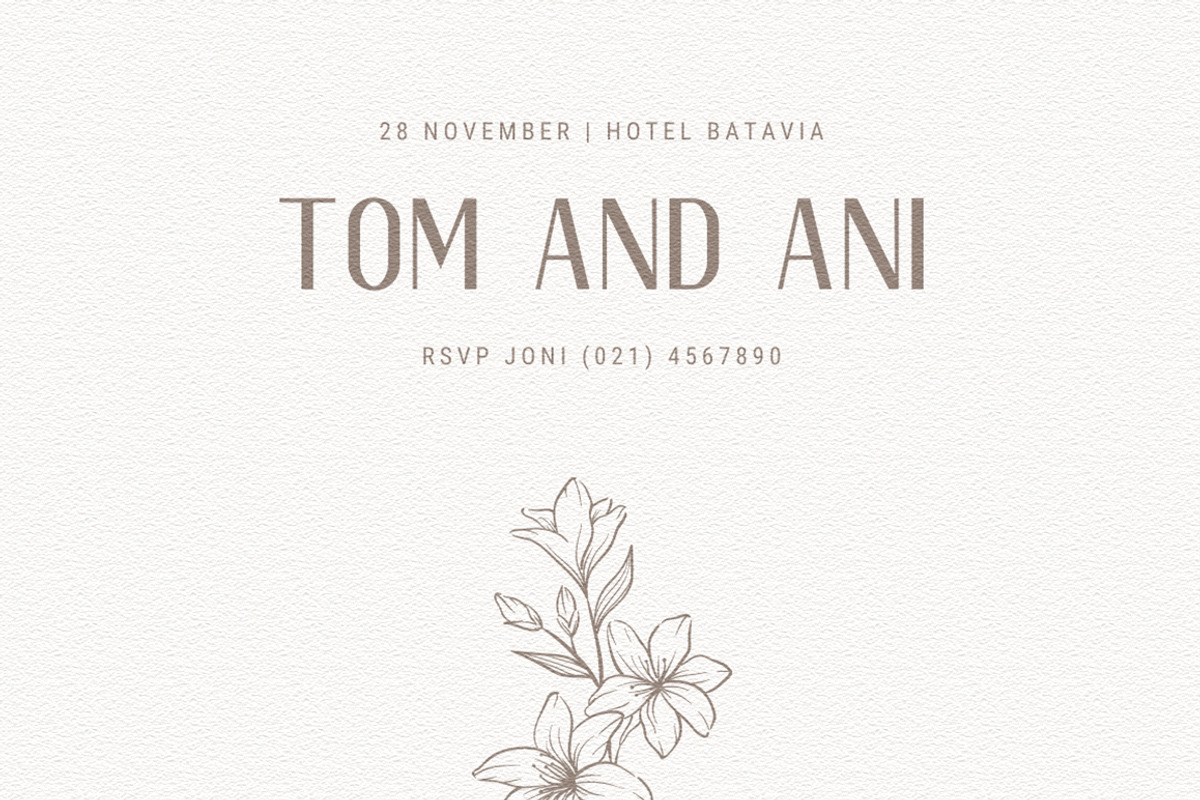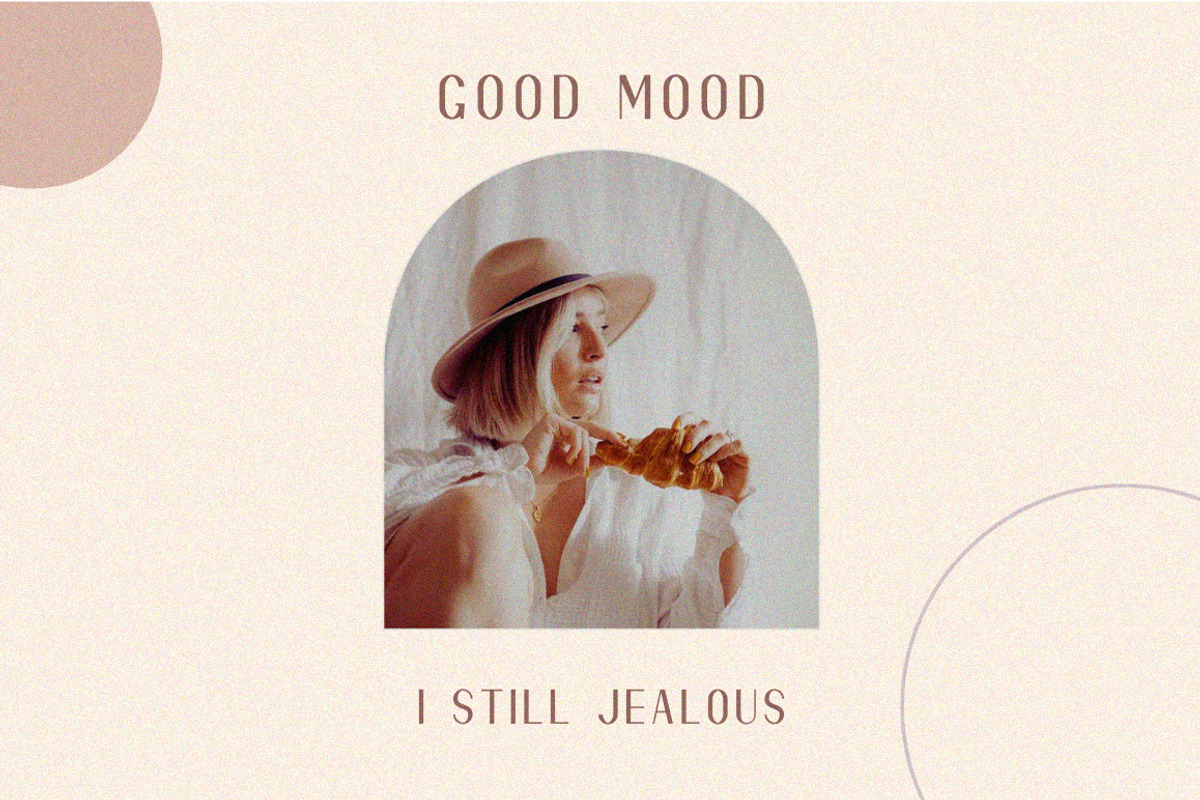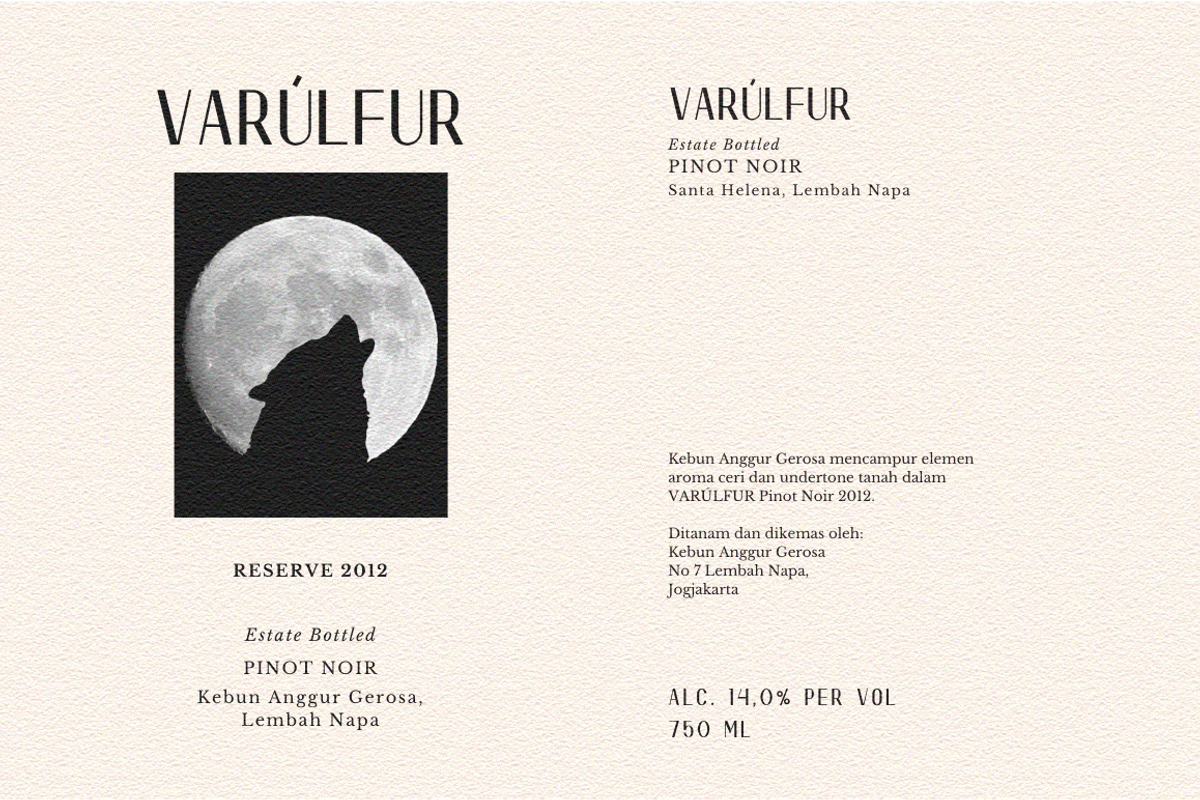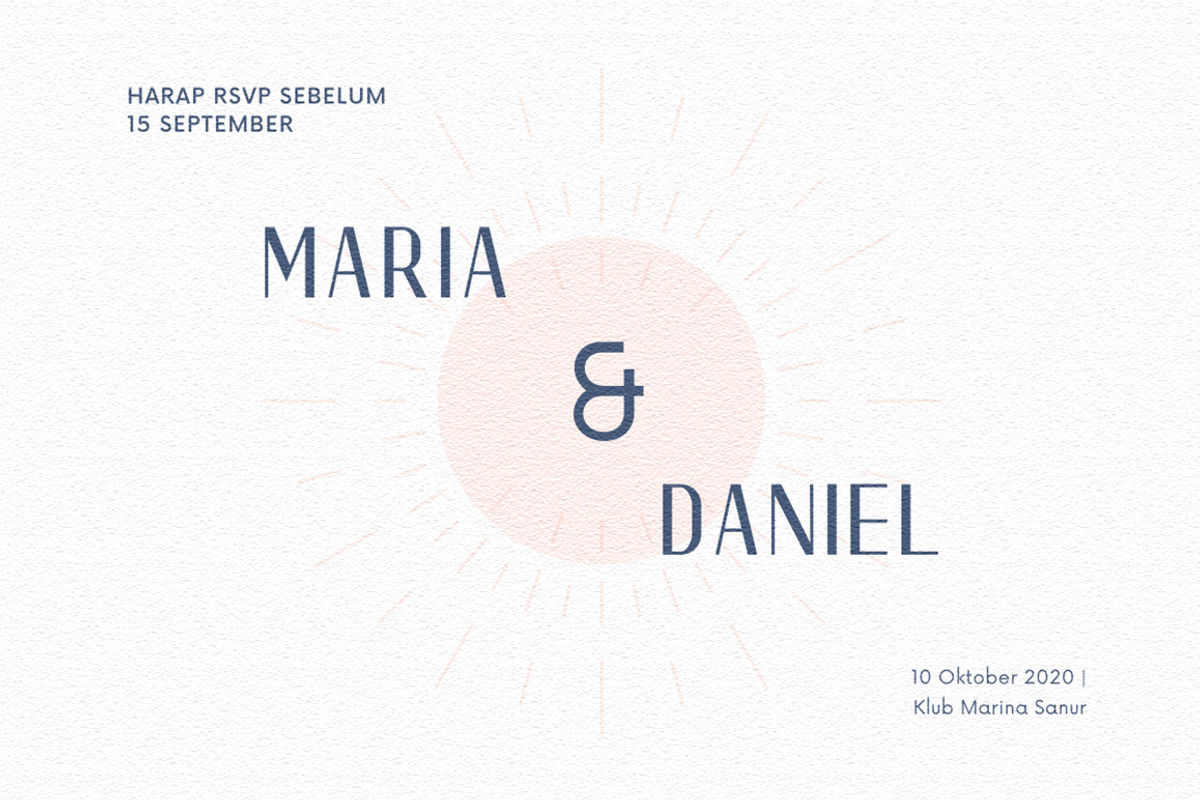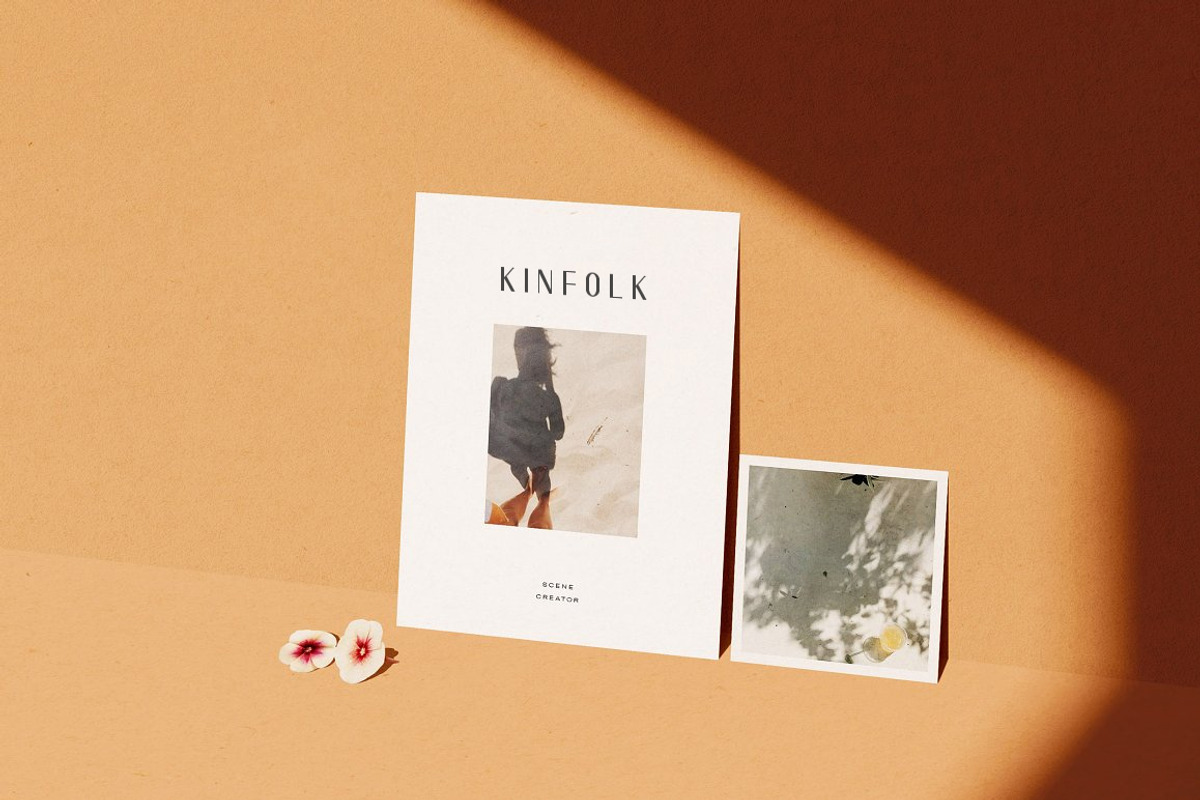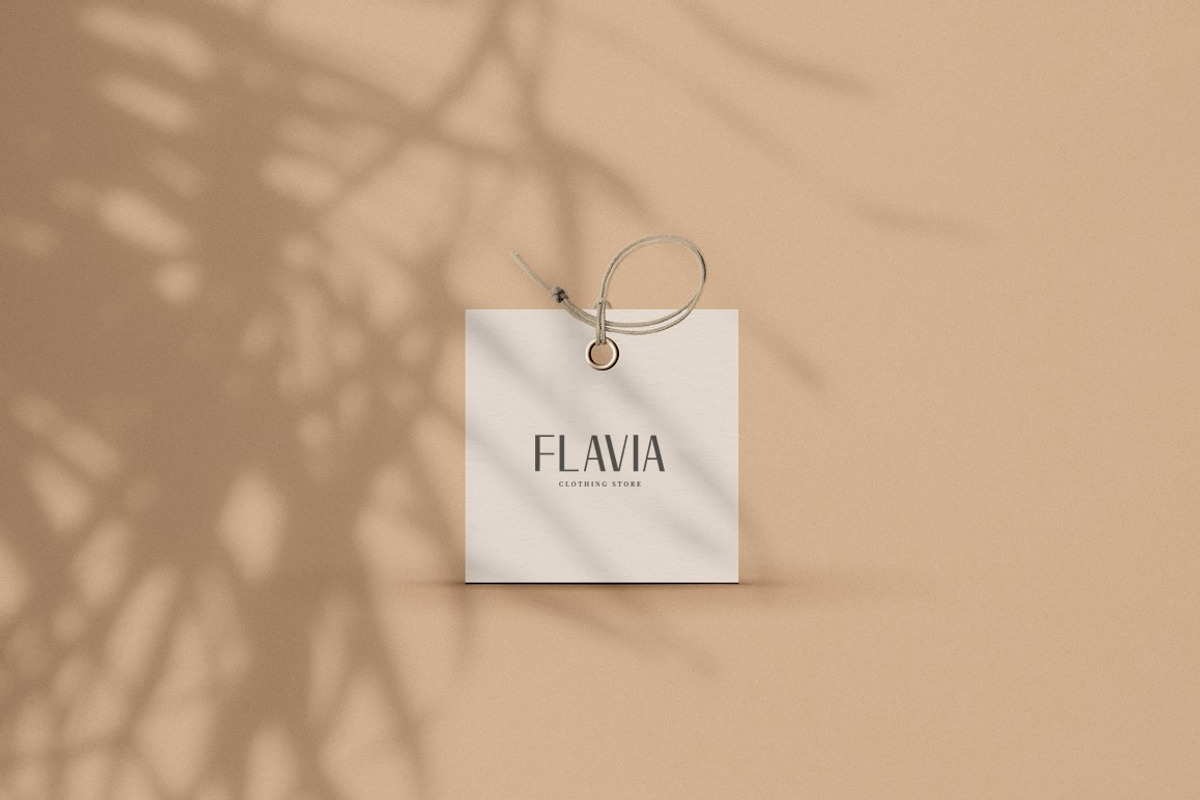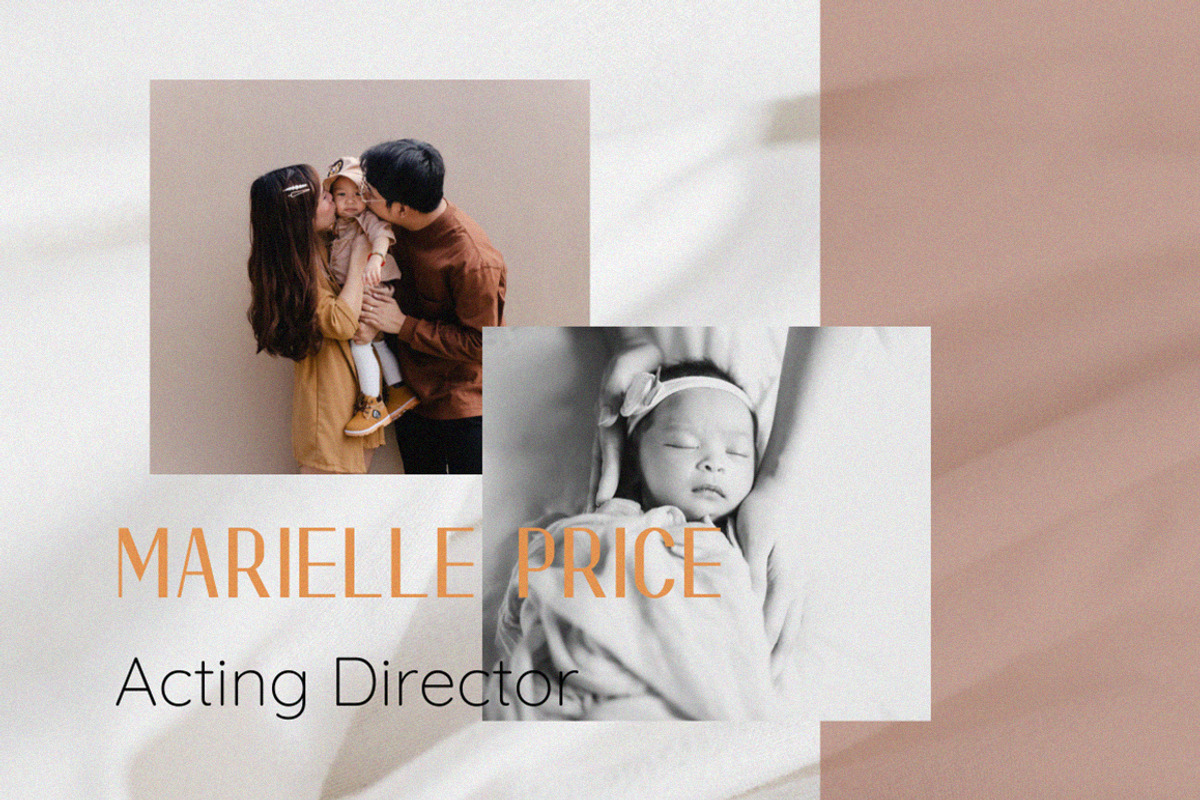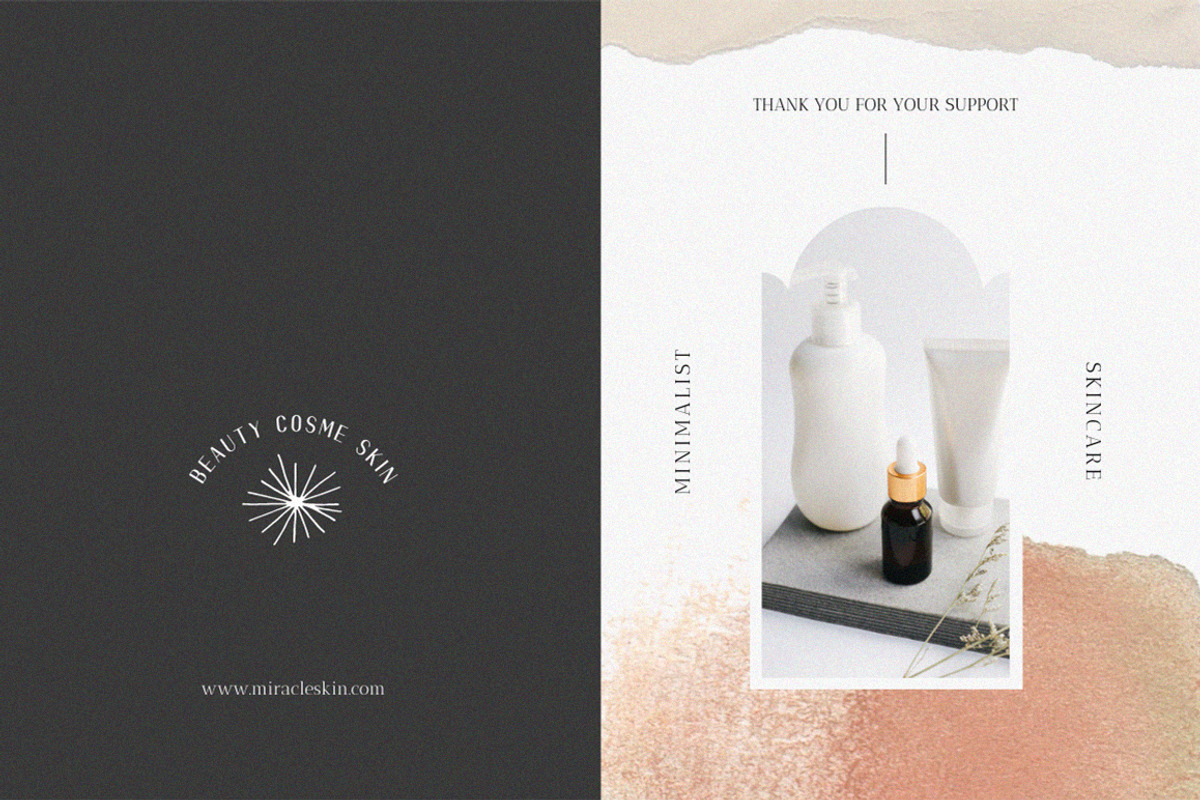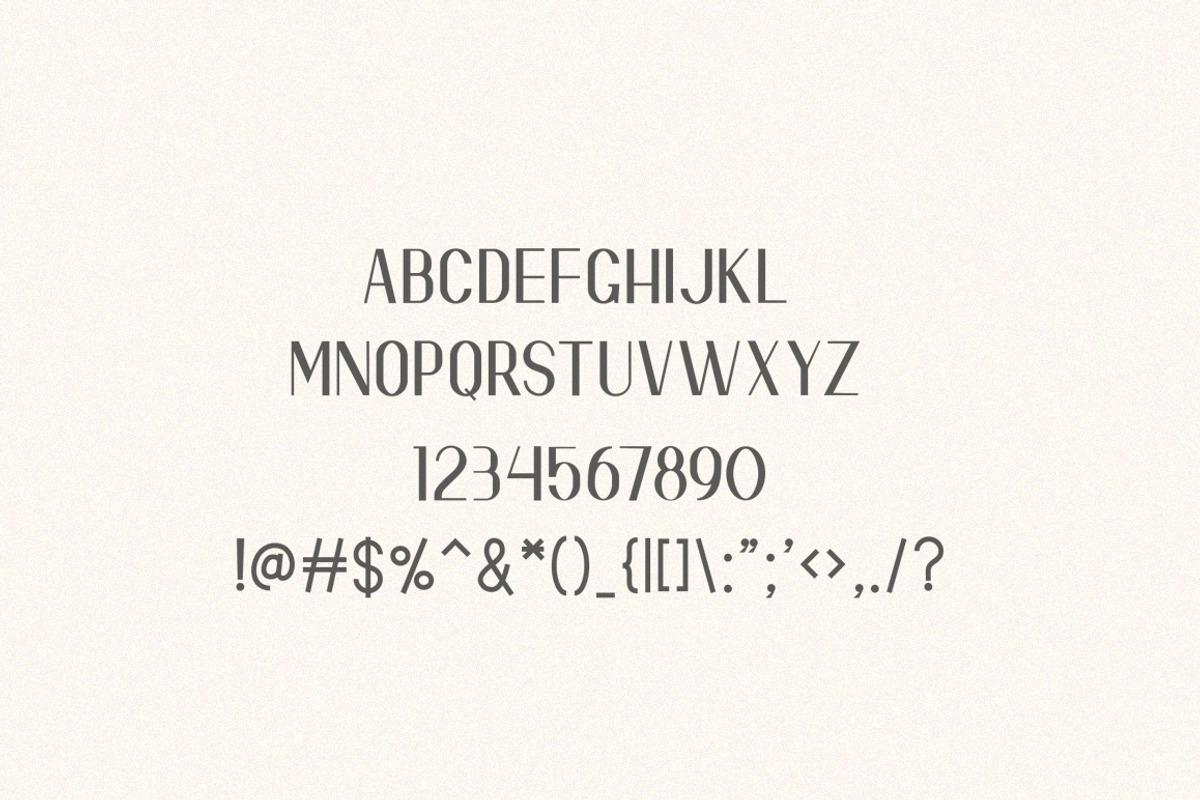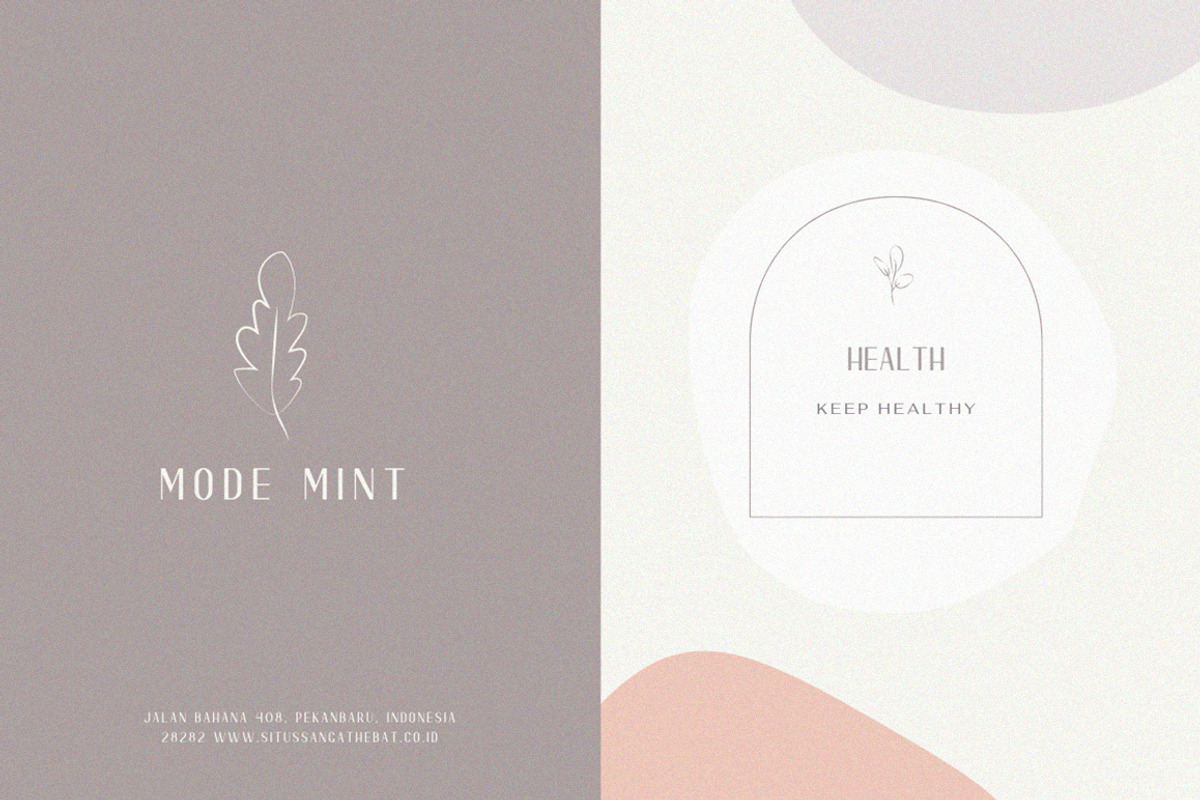
Closia - A Classic Sans
Say Hello To Closia Font – is a clean & minimal sans serif font family, makes your design clean.
It can be perfect for presentations, magazines, notices, titles, magazine, web layouts, logos, invitations, headers, name card, branding and other any business related.
- A-Z & a-z
- Accents (Multilingual characters) (AÀÁÂÃÄÅCÇDÐEÈÉÊËIÌÍÎÏNÑOØÒÓÔÕÖUÙÜÚÛWYÝŸỲŸÆŒßÞ)